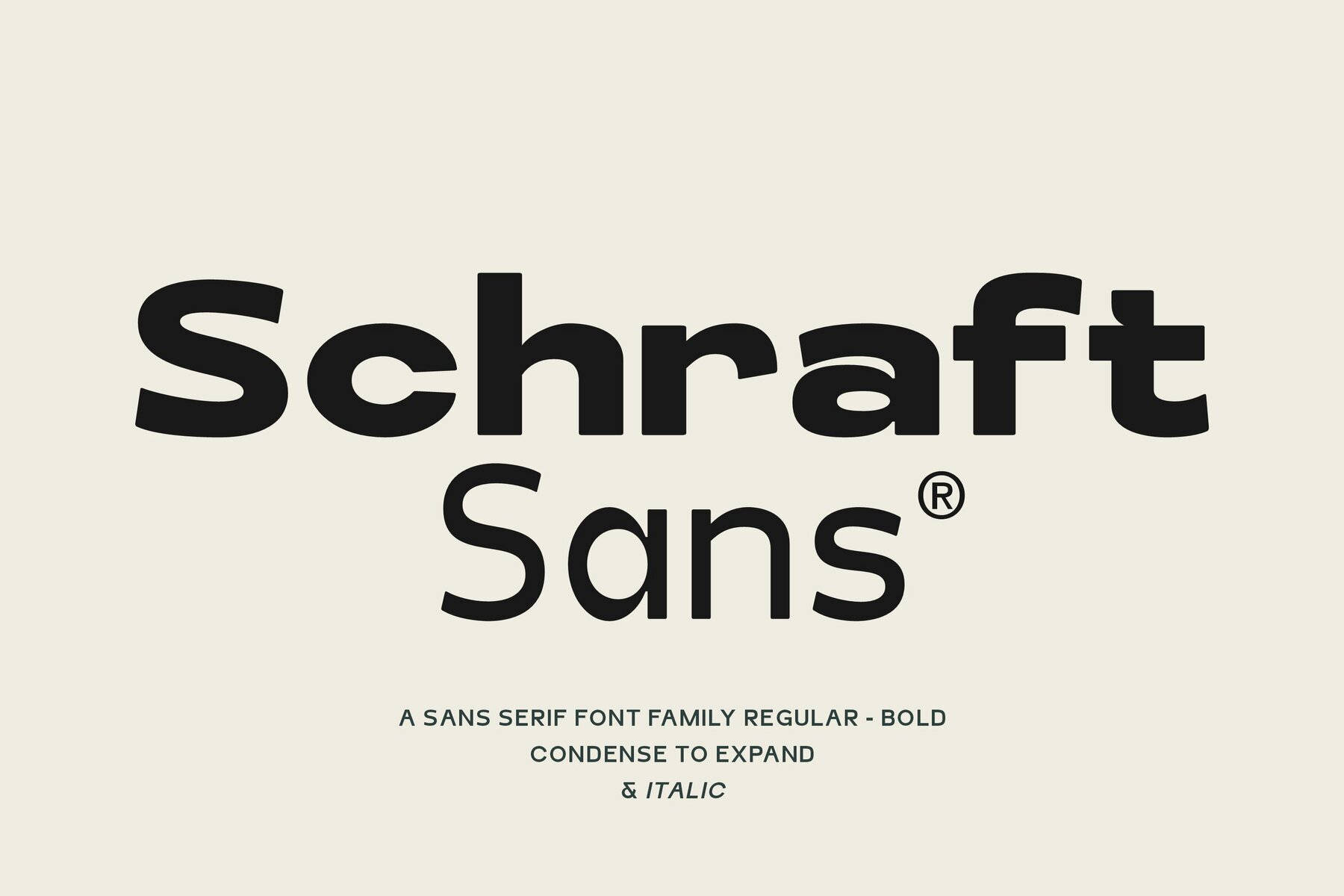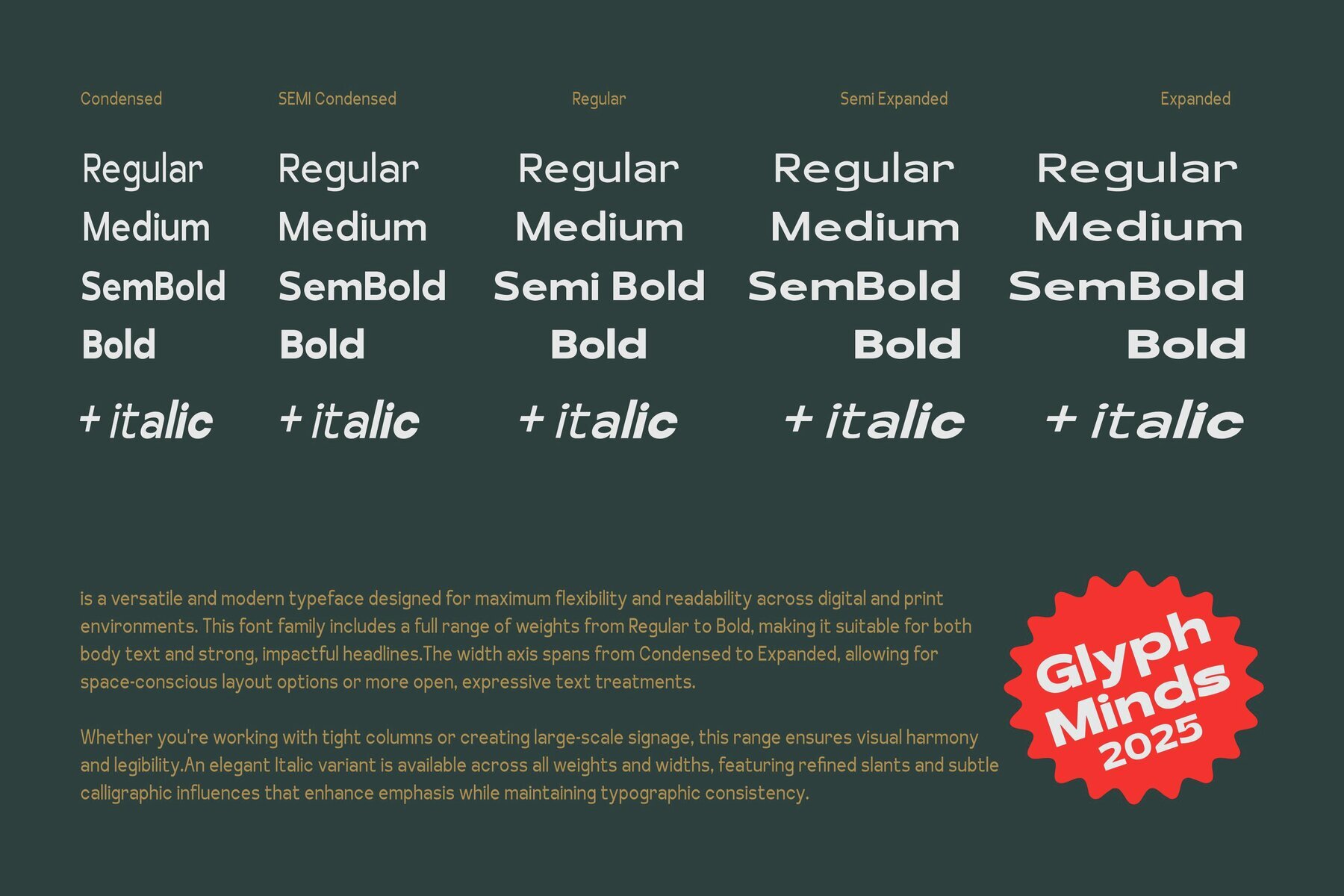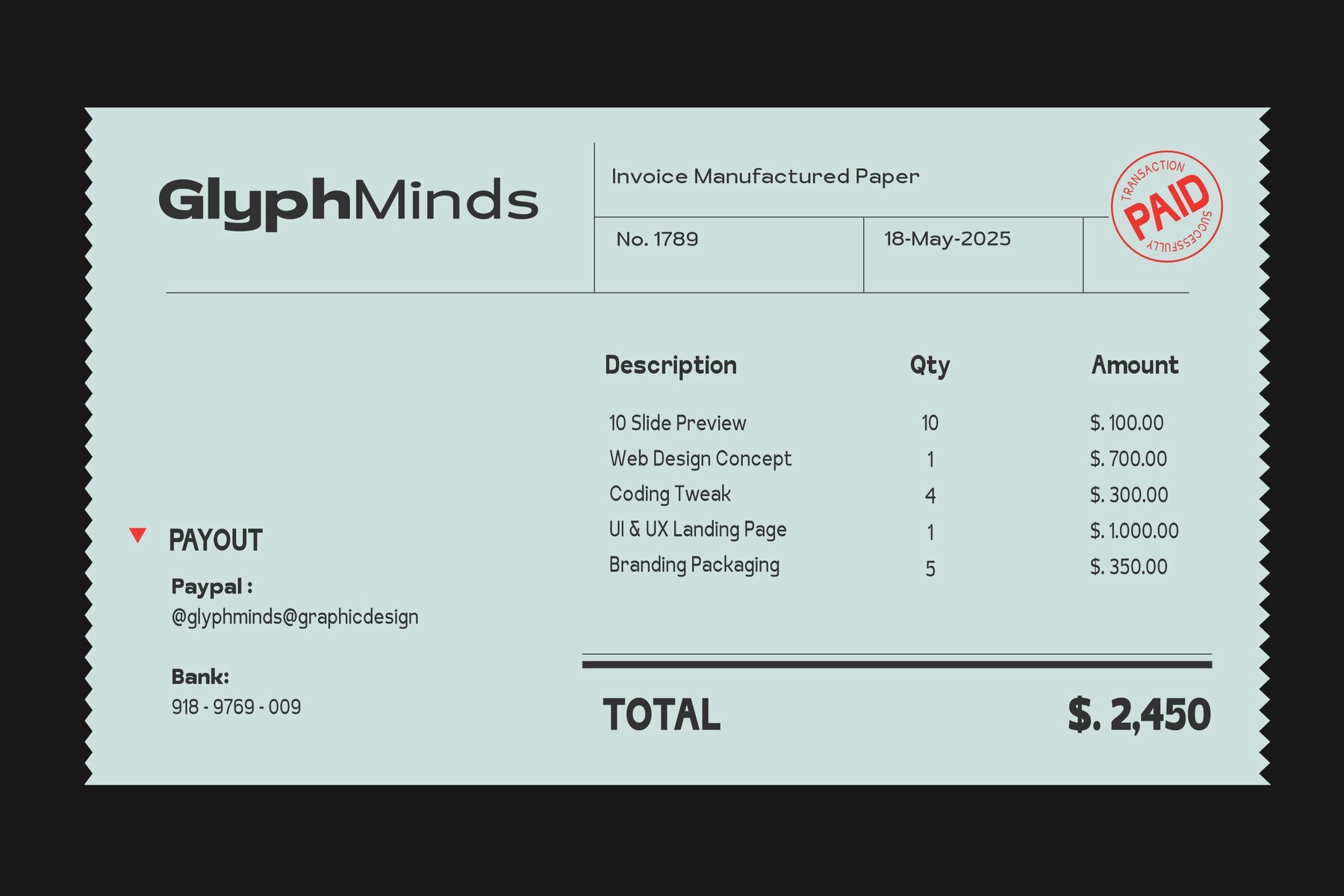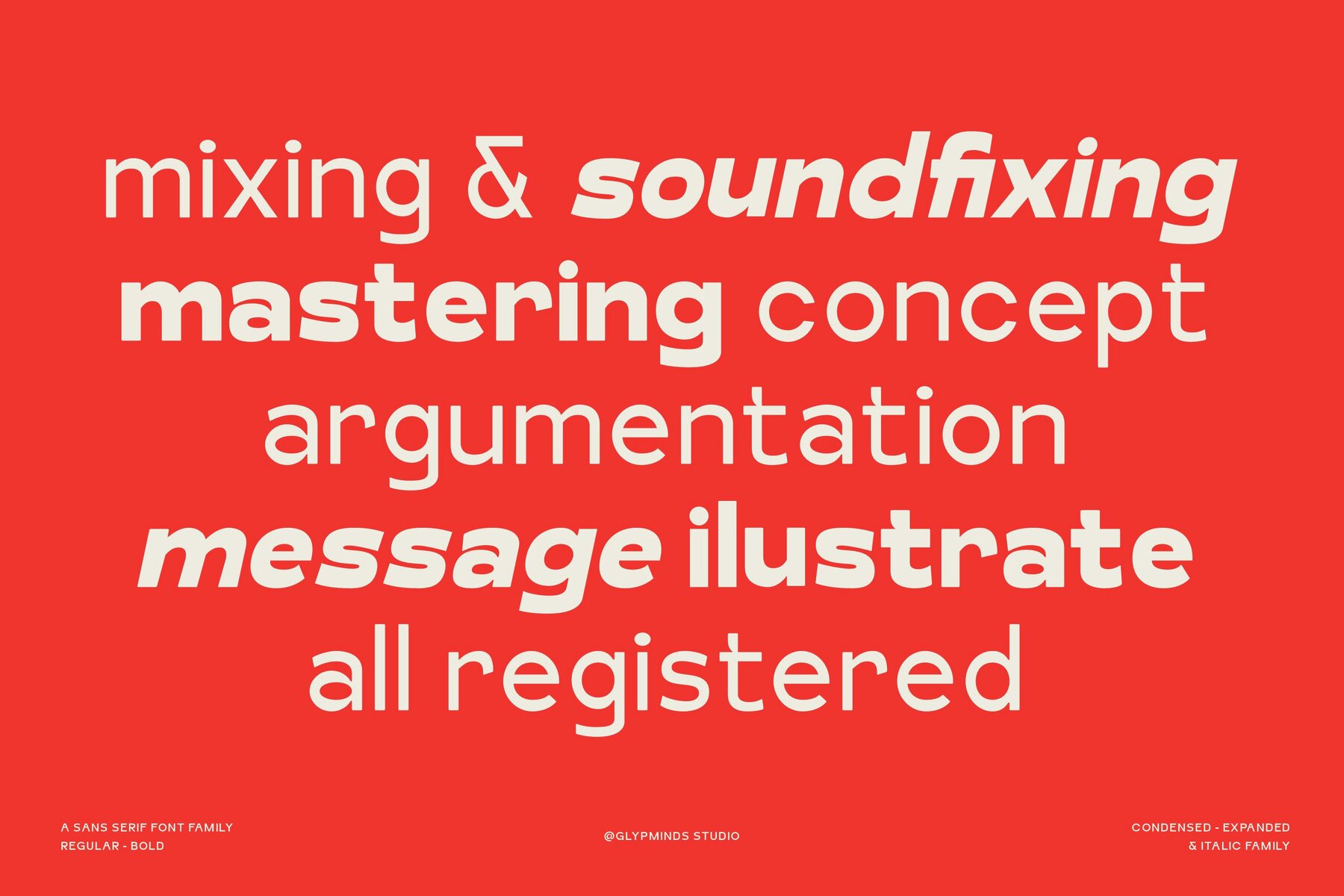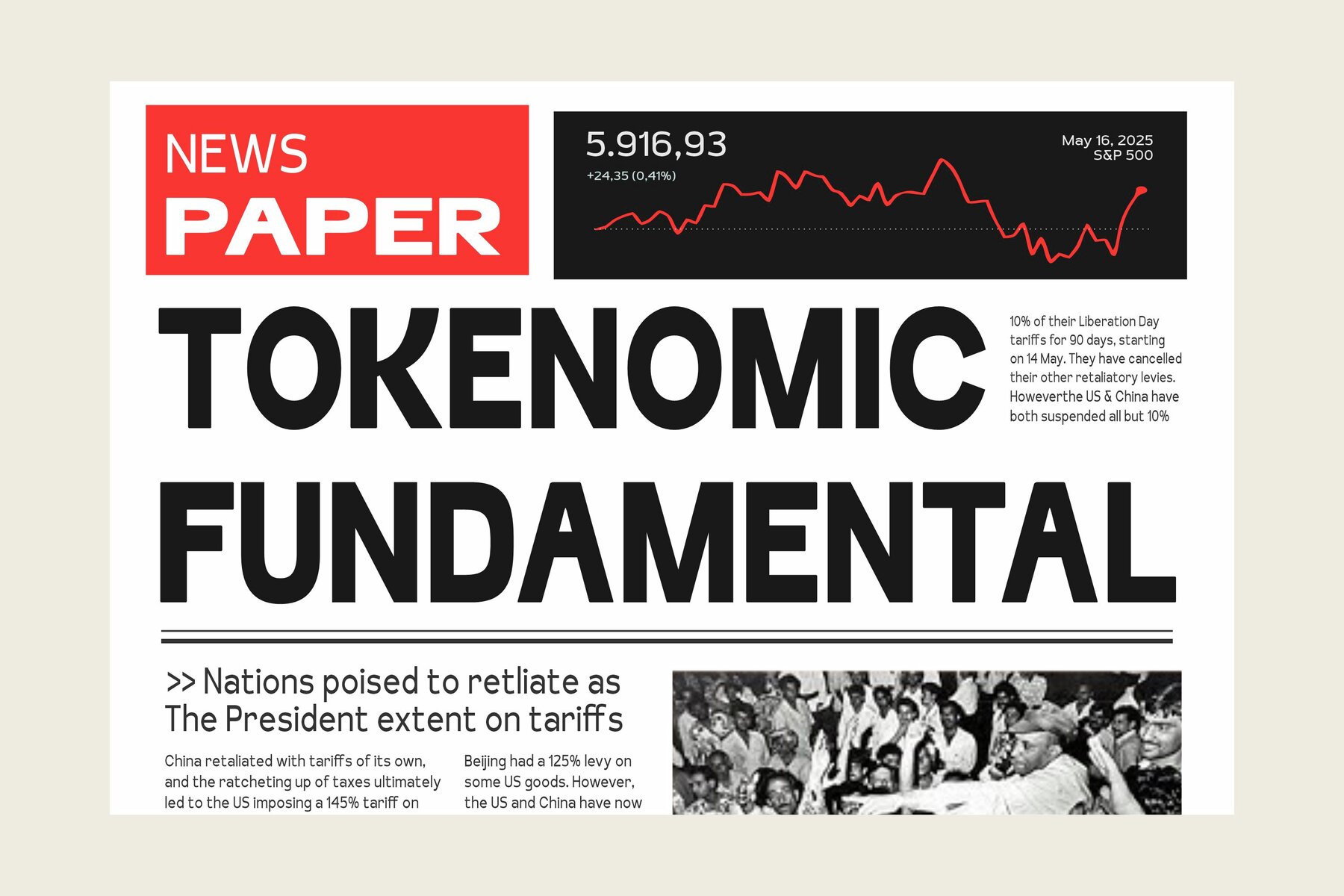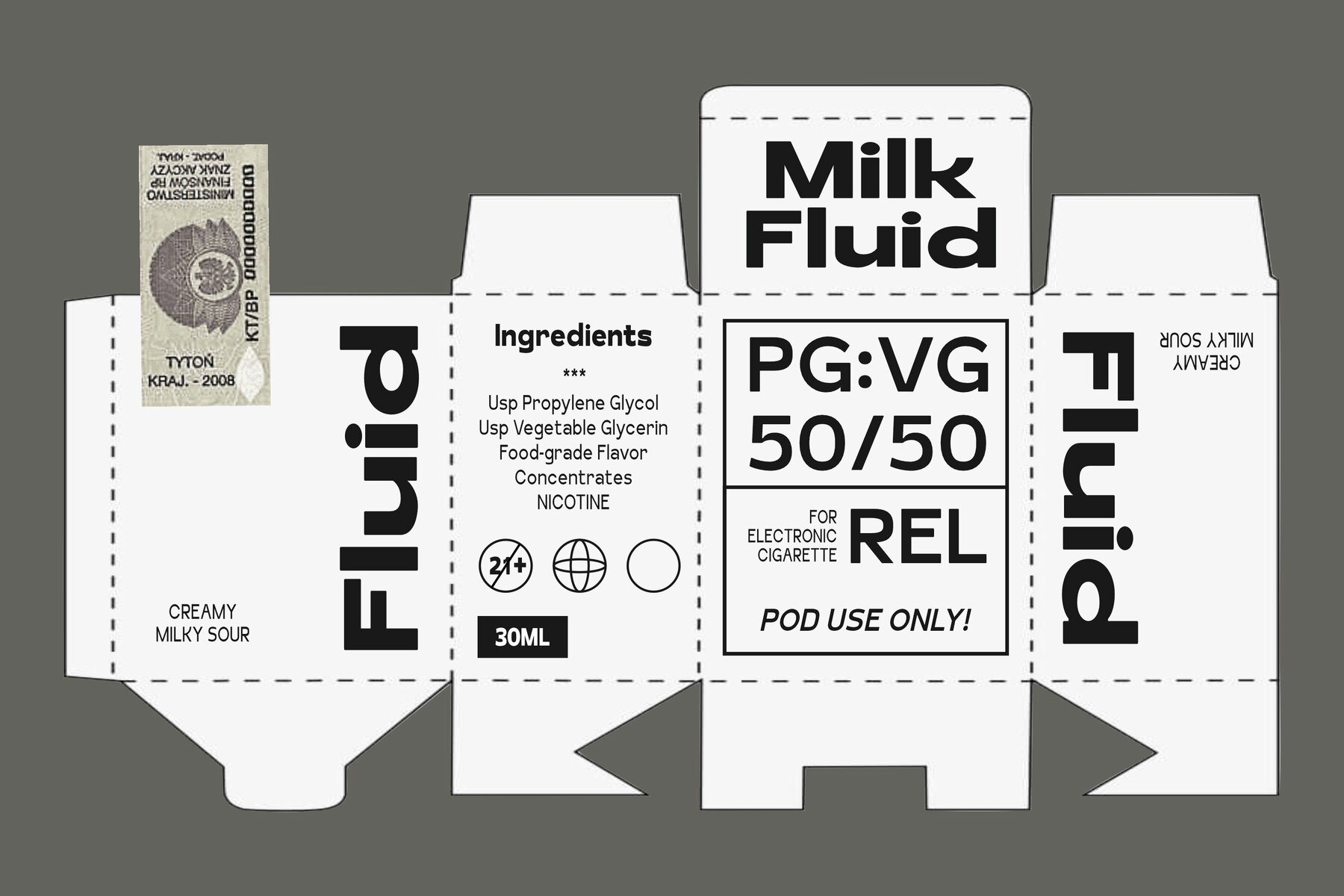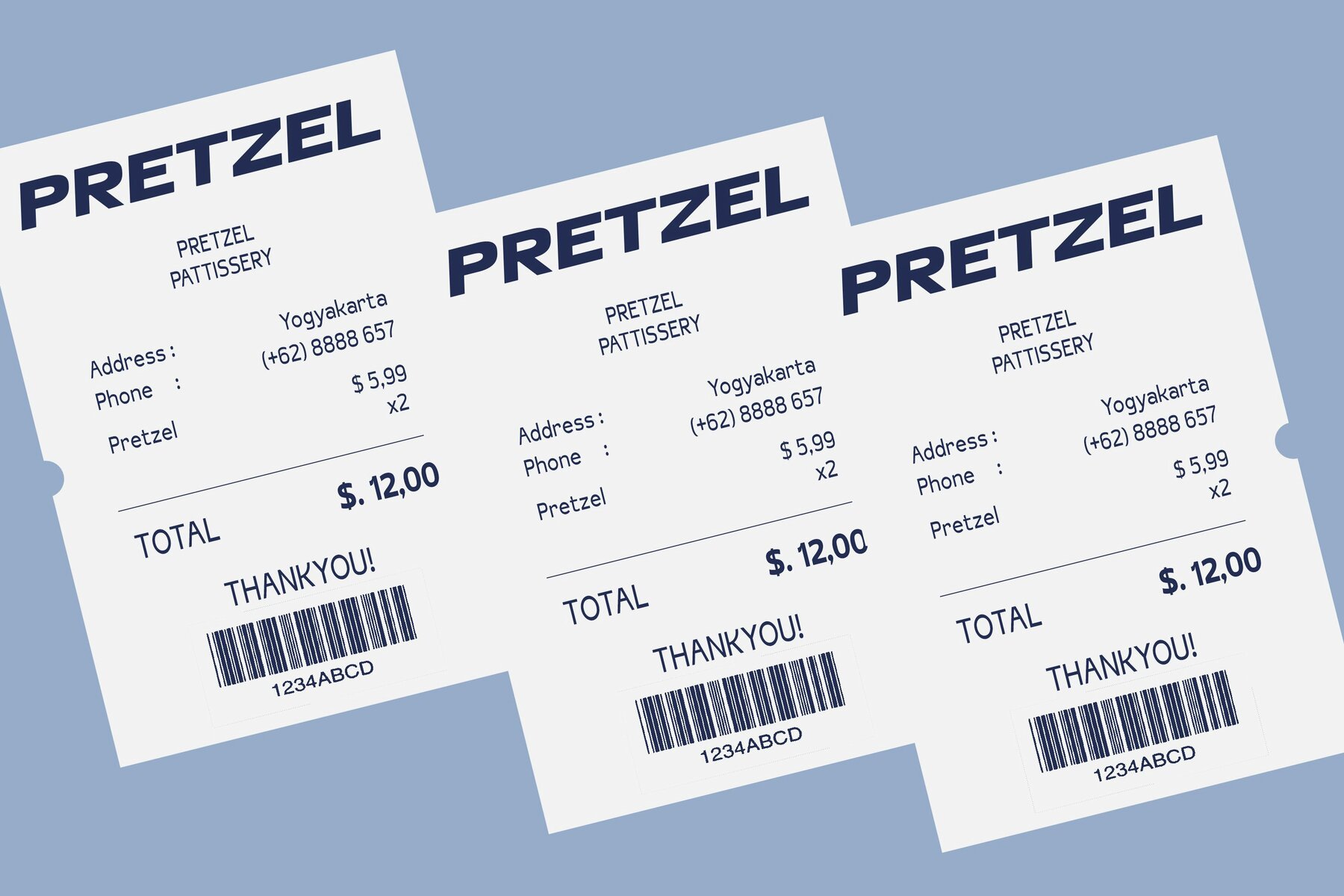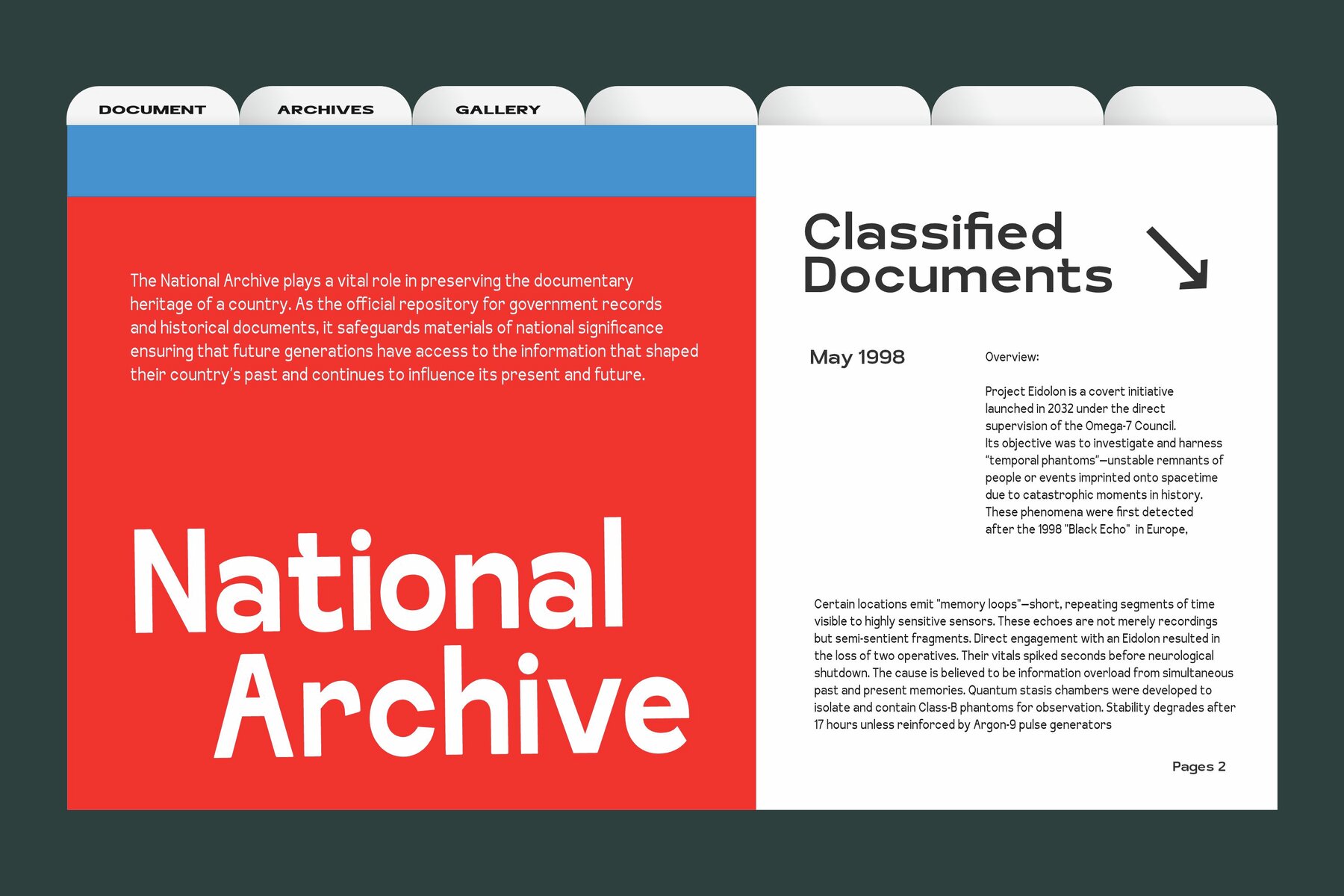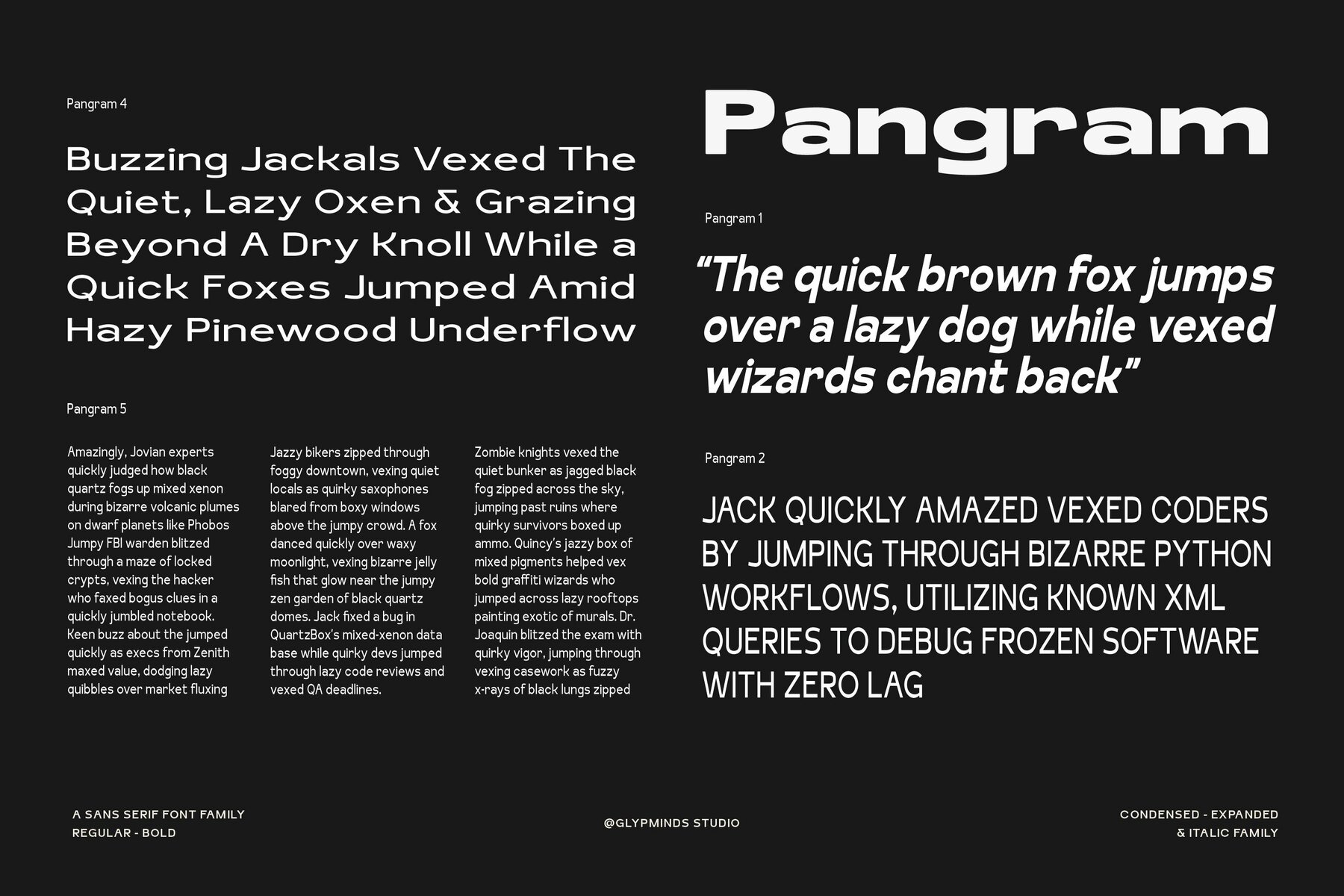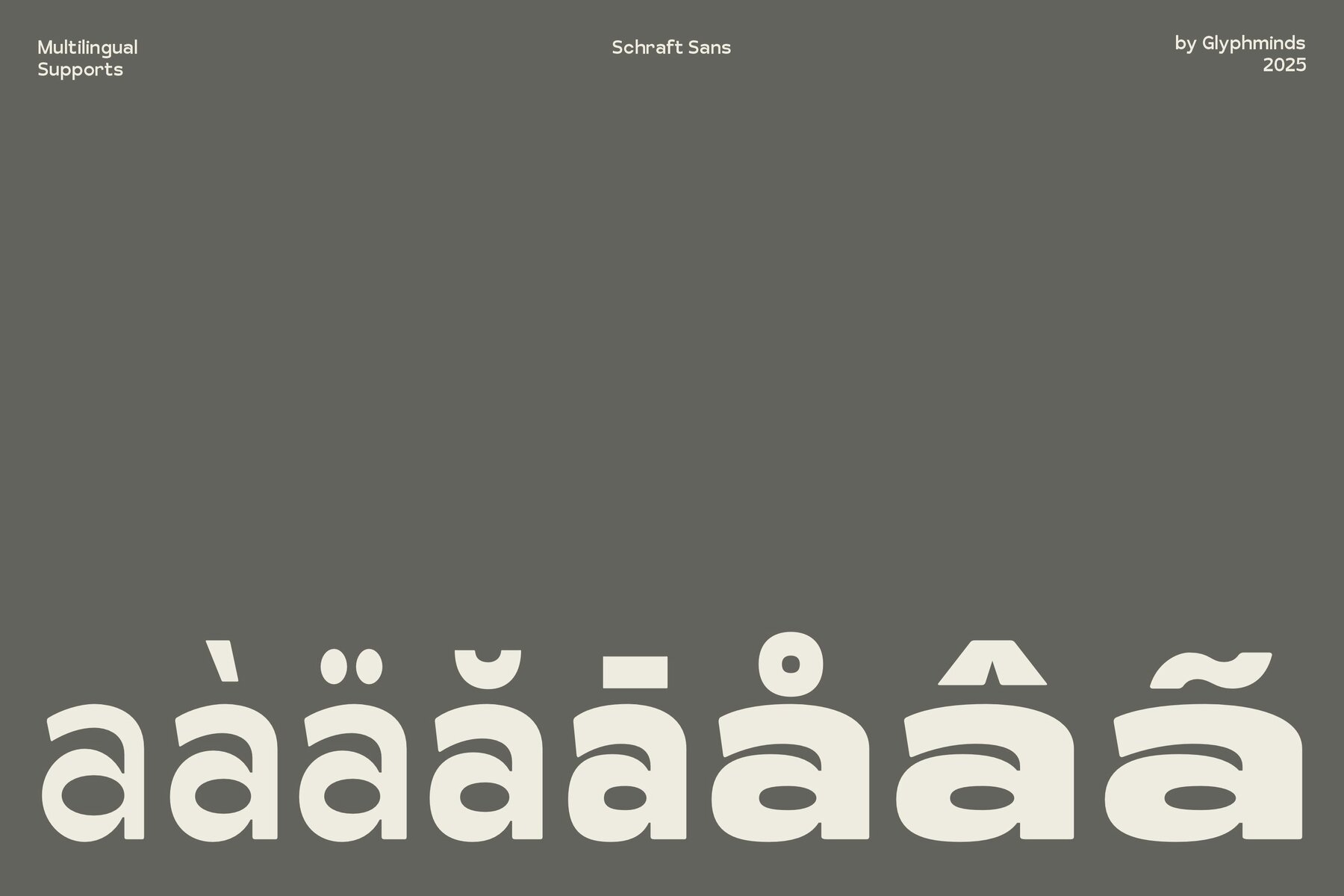
Schraft Font
Schraft Sans is a contemporary sans serif font family designed for clarity and flexibility, offering a modern appeal. Its clean geometric structure makes it ideal for a variety of applications, from bold headlines and logos to user interfaces and editorial layouts. This family includes a full range of weights and styles, from Regular to Bold, as well as Condensed to Expanded and Italic styles. These options provide total control over your typography. Perfect for:Schraft Sans: Modern Sans Serif with Versatility
Comprehensive Font Family